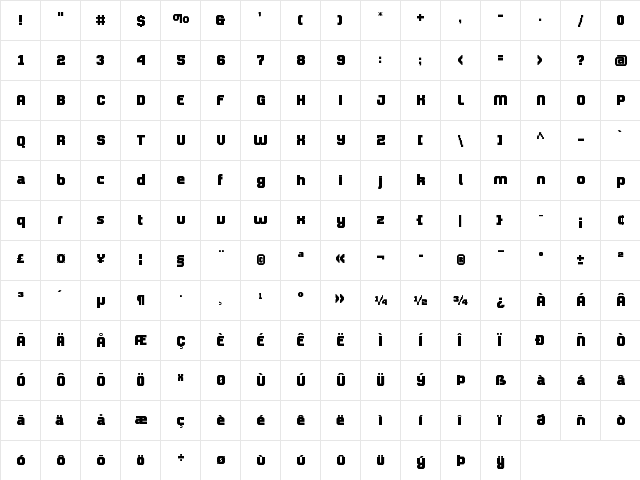
ProLamina Regular
| Designer | Alejandro Cabrera Avila |
Design Context for ProLamina Typeface
ProLamina offers clean, dependable letterforms without strong stylistic allegiance, making it a practical choice for designers who need flexibility.